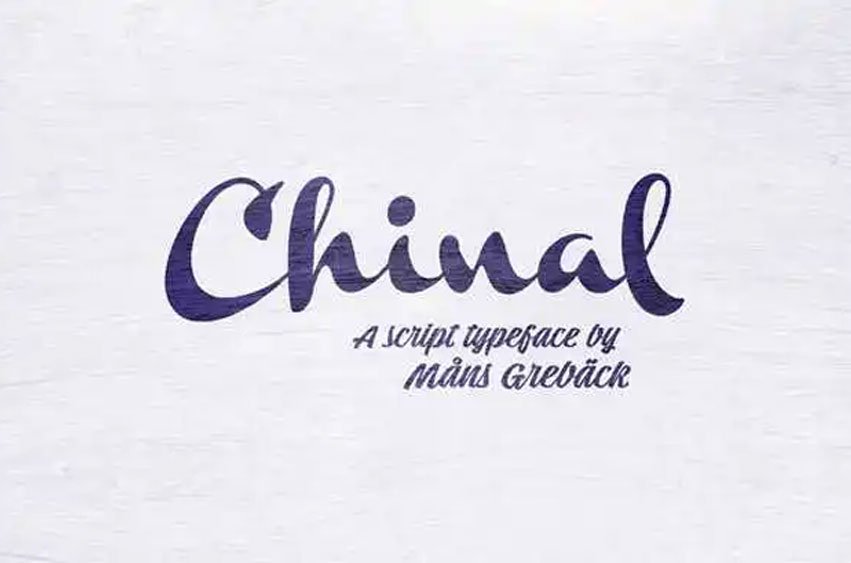
Chinal Script Font belongs to the script type, and its style is in the harmonic category. Måns Grebäck designed the Ittigen Std during the year 2017. This high quality typeface family comes in four complementing weights: These are Chinal Light, Chinal Medium, Chinal Bold and Chinal Black. There are also numerous other OpenType features included in the font; such as the contextual alternates, a fresh set of stylistic characters, swashes and initial/final letters, ornaments and ligatures.
Chinal is one of the most versatile fonts as it includes as many as hundreds of glyphs therefore it is compatible with a large number of languages.